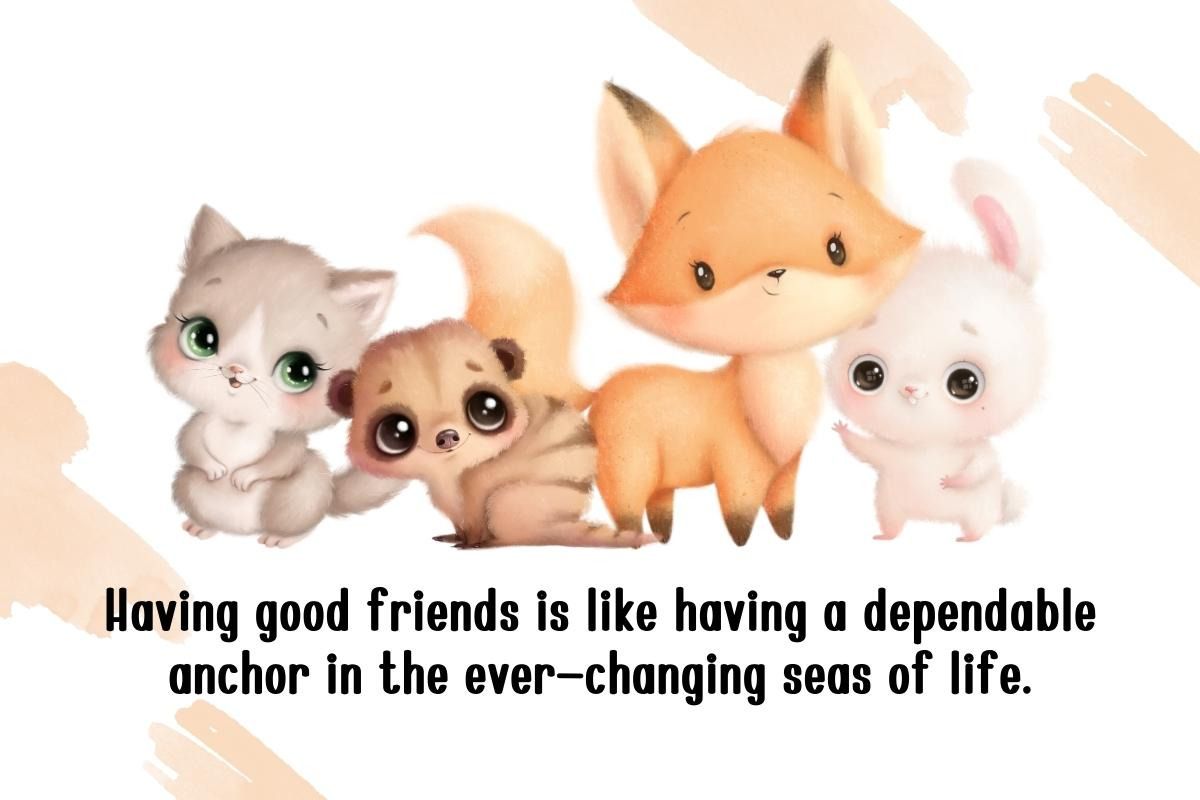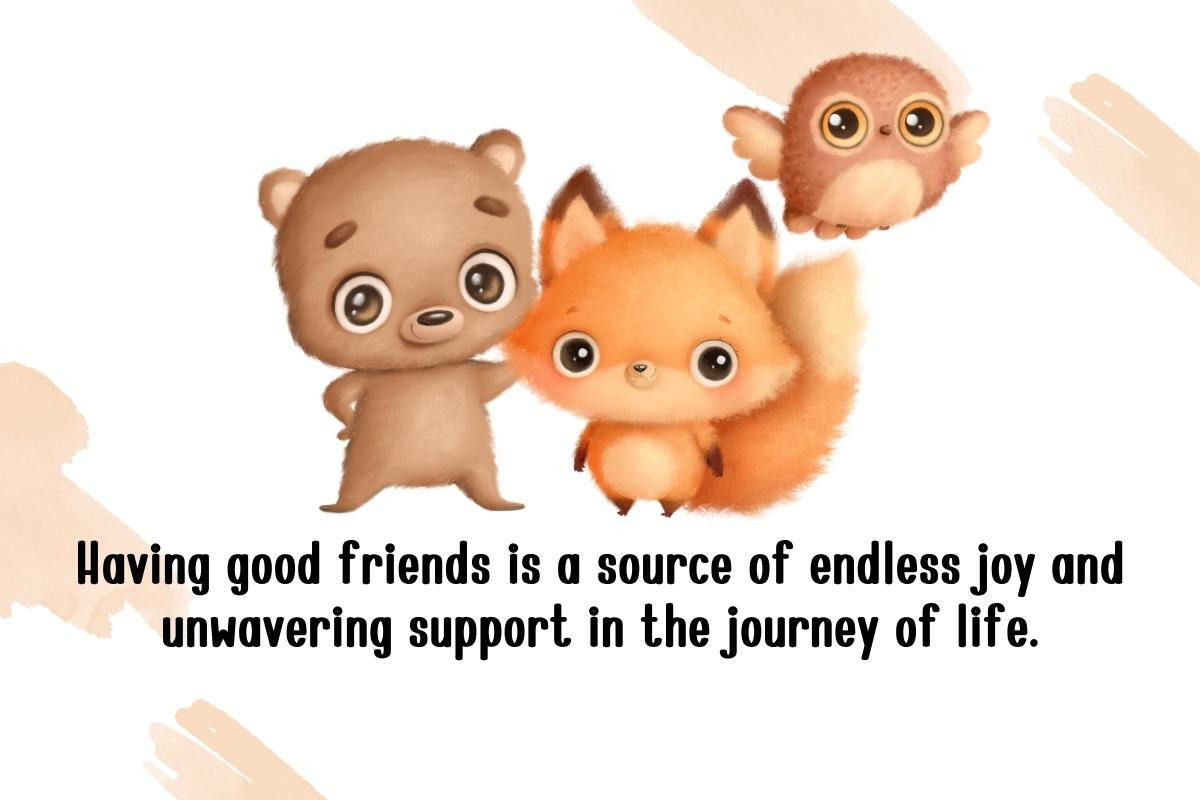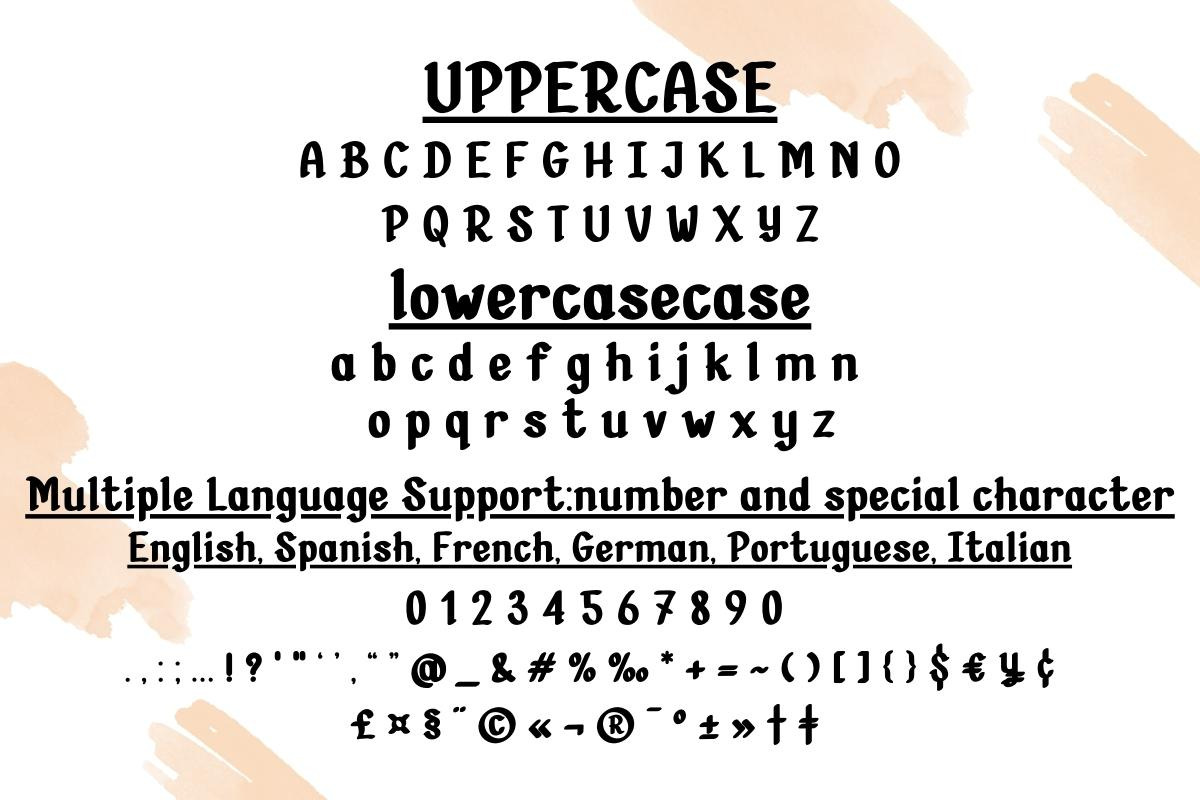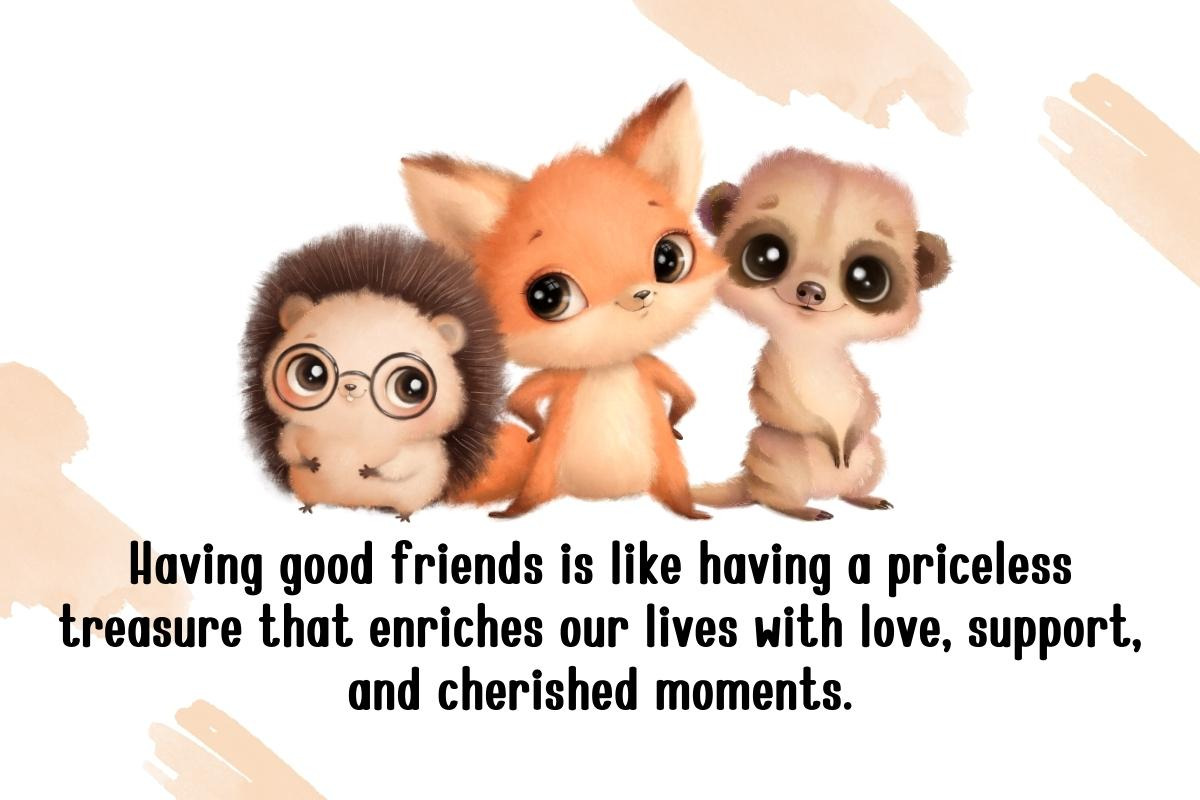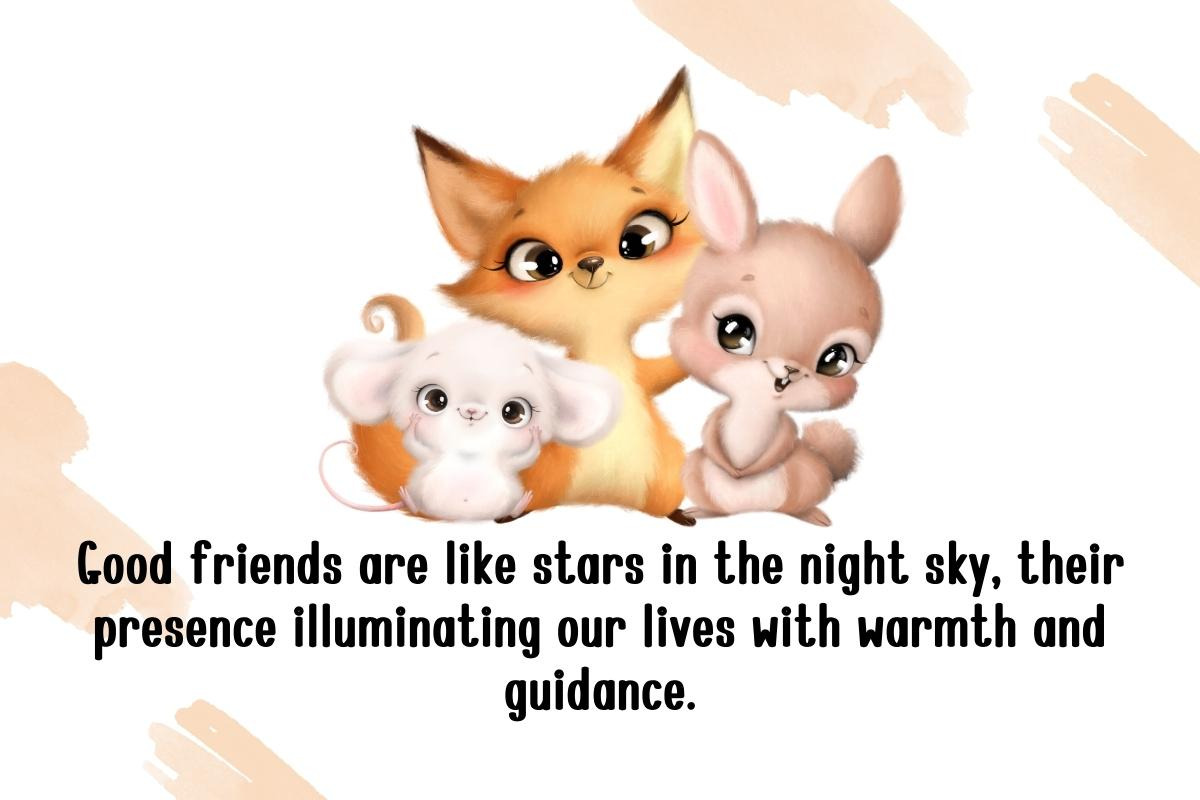
Friend Little Fox - Handwritten
Introducing "Friend Little Fox" – the perfect script font, display font, and handwritten font all rolled into one delightful typeface. Crafted with precision and care, this font is your new go-to for adding charm and personality to your projects. Whether you're designing invitations, branding, or anything in between, let "Friend Little Fox" bring warmth and character to your creations. Try it today and let your words come to life with a touch of whimsy!